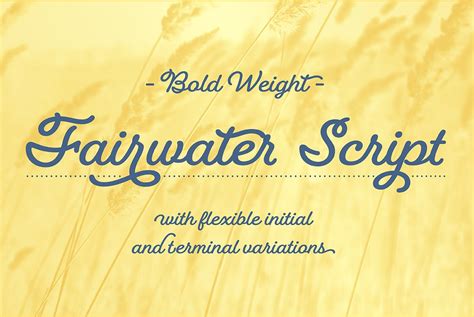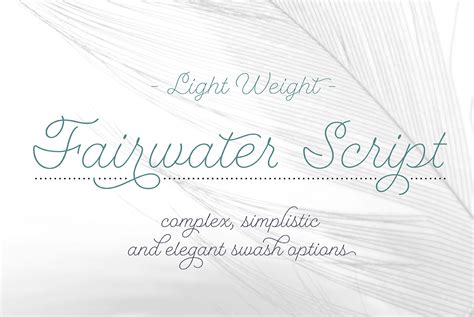
Fairwater Script Bold Font
Fairwater Script Bold Font - Fairwater script bold by adobe systems incorporated. Designed by laura worthington, fairwater is a dingbat, script and hand display font family. A script typeface with 3 styles, available from adobe fonts for sync and. Installable on pc, mac, linux, ios, and android platforms. Explore fairwater script designed by laura worthington at adobe fonts. Download fairwater script bold font. Discover the free fairwater script bold font at free font download ! The fairwater family includes a script and sans face in three weights, four decorative serif faces and an ornamental font:
Fairwater script bold by adobe systems incorporated. A script typeface with 3 styles, available from adobe fonts for sync and. Explore fairwater script designed by laura worthington at adobe fonts. Designed by laura worthington, fairwater is a dingbat, script and hand display font family. Discover the free fairwater script bold font at free font download ! Download fairwater script bold font. The fairwater family includes a script and sans face in three weights, four decorative serif faces and an ornamental font: Installable on pc, mac, linux, ios, and android platforms.
Fairwater script bold by adobe systems incorporated. The fairwater family includes a script and sans face in three weights, four decorative serif faces and an ornamental font: Installable on pc, mac, linux, ios, and android platforms. A script typeface with 3 styles, available from adobe fonts for sync and. Explore fairwater script designed by laura worthington at adobe fonts. Download fairwater script bold font. Discover the free fairwater script bold font at free font download ! Designed by laura worthington, fairwater is a dingbat, script and hand display font family.
A script typeface with 3 styles, available from adobe fonts for sync and. Discover the free fairwater script bold font at free font download ! The fairwater family includes a script and sans face in three weights, four decorative serif faces and an ornamental font: Installable on pc, mac, linux, ios, and android platforms. Explore fairwater script designed by laura.
The fairwater family includes a script and sans face in three weights, four decorative serif faces and an ornamental font: Designed by laura worthington, fairwater is a dingbat, script and hand display font family. Installable on pc, mac, linux, ios, and android platforms. A script typeface with 3 styles, available from adobe fonts for sync and. Discover the free fairwater.
Designed by laura worthington, fairwater is a dingbat, script and hand display font family. Explore fairwater script designed by laura worthington at adobe fonts. The fairwater family includes a script and sans face in three weights, four decorative serif faces and an ornamental font: Installable on pc, mac, linux, ios, and android platforms. Fairwater script bold by adobe systems incorporated.
The fairwater family includes a script and sans face in three weights, four decorative serif faces and an ornamental font: Explore fairwater script designed by laura worthington at adobe fonts. Discover the free fairwater script bold font at free font download ! Designed by laura worthington, fairwater is a dingbat, script and hand display font family. Fairwater script bold by.
Designed by laura worthington, fairwater is a dingbat, script and hand display font family. Fairwater script bold by adobe systems incorporated. Discover the free fairwater script bold font at free font download ! Installable on pc, mac, linux, ios, and android platforms. A script typeface with 3 styles, available from adobe fonts for sync and.
Designed by laura worthington, fairwater is a dingbat, script and hand display font family. Explore fairwater script designed by laura worthington at adobe fonts. Download fairwater script bold font. A script typeface with 3 styles, available from adobe fonts for sync and. The fairwater family includes a script and sans face in three weights, four decorative serif faces and an.
Discover the free fairwater script bold font at free font download ! Designed by laura worthington, fairwater is a dingbat, script and hand display font family. A script typeface with 3 styles, available from adobe fonts for sync and. Fairwater script bold by adobe systems incorporated. Installable on pc, mac, linux, ios, and android platforms.
Download fairwater script bold font. Discover the free fairwater script bold font at free font download ! Fairwater script bold by adobe systems incorporated. Installable on pc, mac, linux, ios, and android platforms. A script typeface with 3 styles, available from adobe fonts for sync and.
Explore fairwater script designed by laura worthington at adobe fonts. The fairwater family includes a script and sans face in three weights, four decorative serif faces and an ornamental font: Discover the free fairwater script bold font at free font download ! A script typeface with 3 styles, available from adobe fonts for sync and. Installable on pc, mac, linux,.
A Script Typeface With 3 Styles, Available From Adobe Fonts For Sync And.
Explore fairwater script designed by laura worthington at adobe fonts. The fairwater family includes a script and sans face in three weights, four decorative serif faces and an ornamental font: Installable on pc, mac, linux, ios, and android platforms. Designed by laura worthington, fairwater is a dingbat, script and hand display font family.